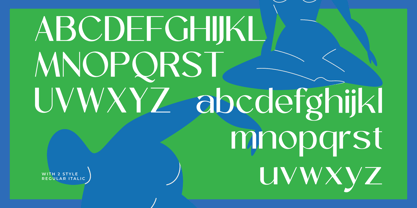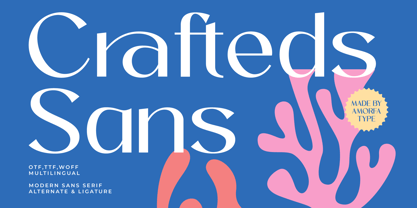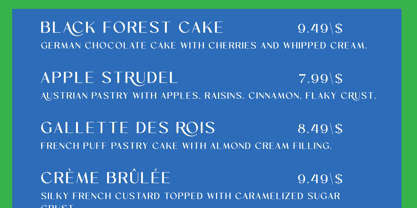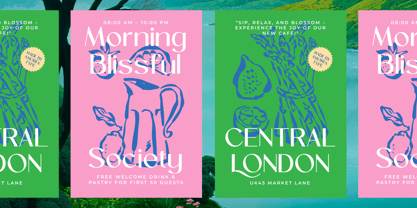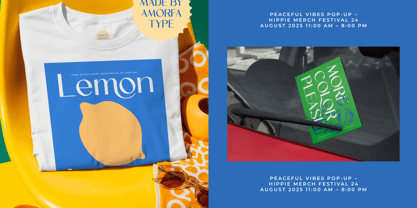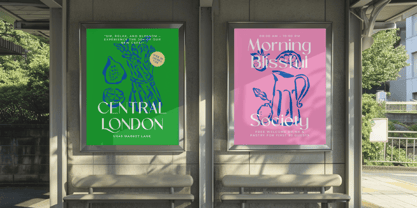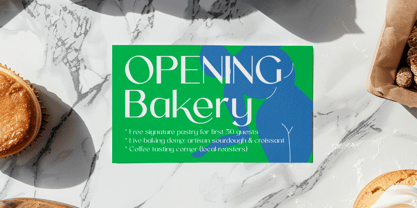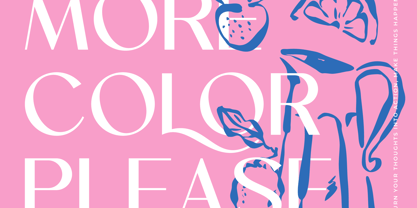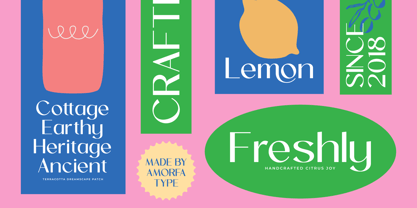
Crafteds
by Amorfa Type
The Crafteds Font Family was designed by Shiddiq Roihan and published by Amorfa Type. Crafteds contains 2 styles and family package options. More about this family
Crafteds is a clean and stylish modern sans serif font that combines balanced proportions, sleek shapes, and subtle details to deliver a professional yet approachable look. Its versatile design works beautifully for branding, editorial layouts, web design, packaging, and more — ensuring clarity and elegance across both print and digital projects.
Designers: Shiddiq Roihan
Foundry: Amorfa Type